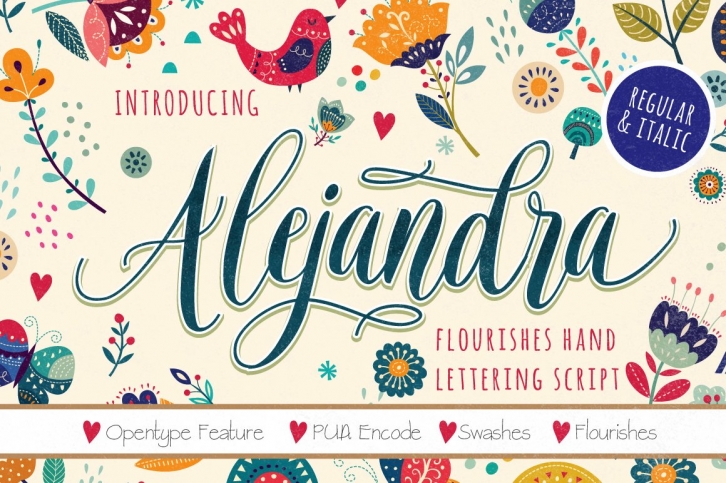
Alejandra is a florishes Handlettering Script. Carefully crafted, comes in regular and italic. Flowing smoothly, perfect for designing book covers, film covers, apparel, cards, logos, posters, etc. Opentype features gives you more alternatives in designing.
- Basic Latin A-Z and a-z
- Symbols
- Swash
- Stylistic Set